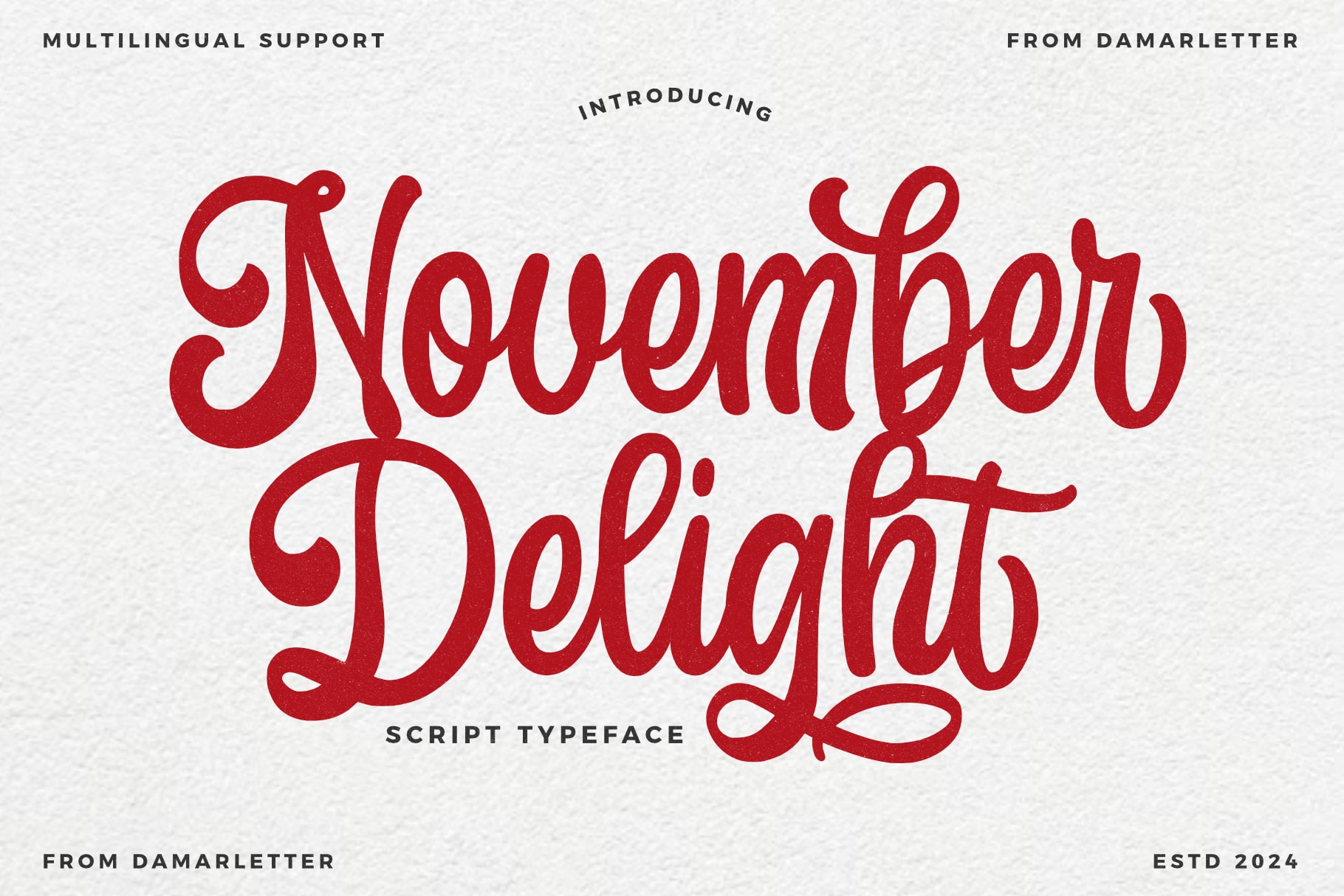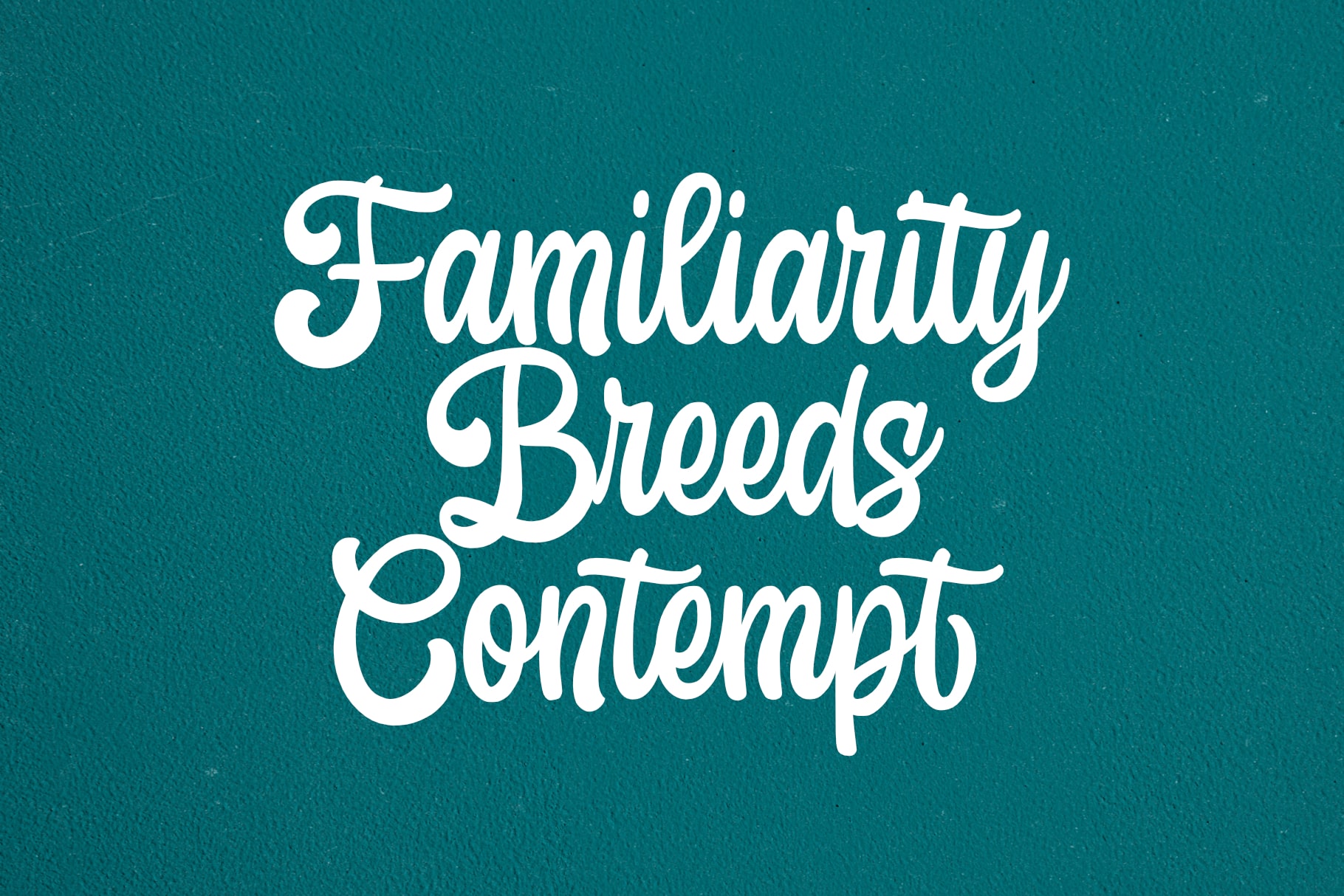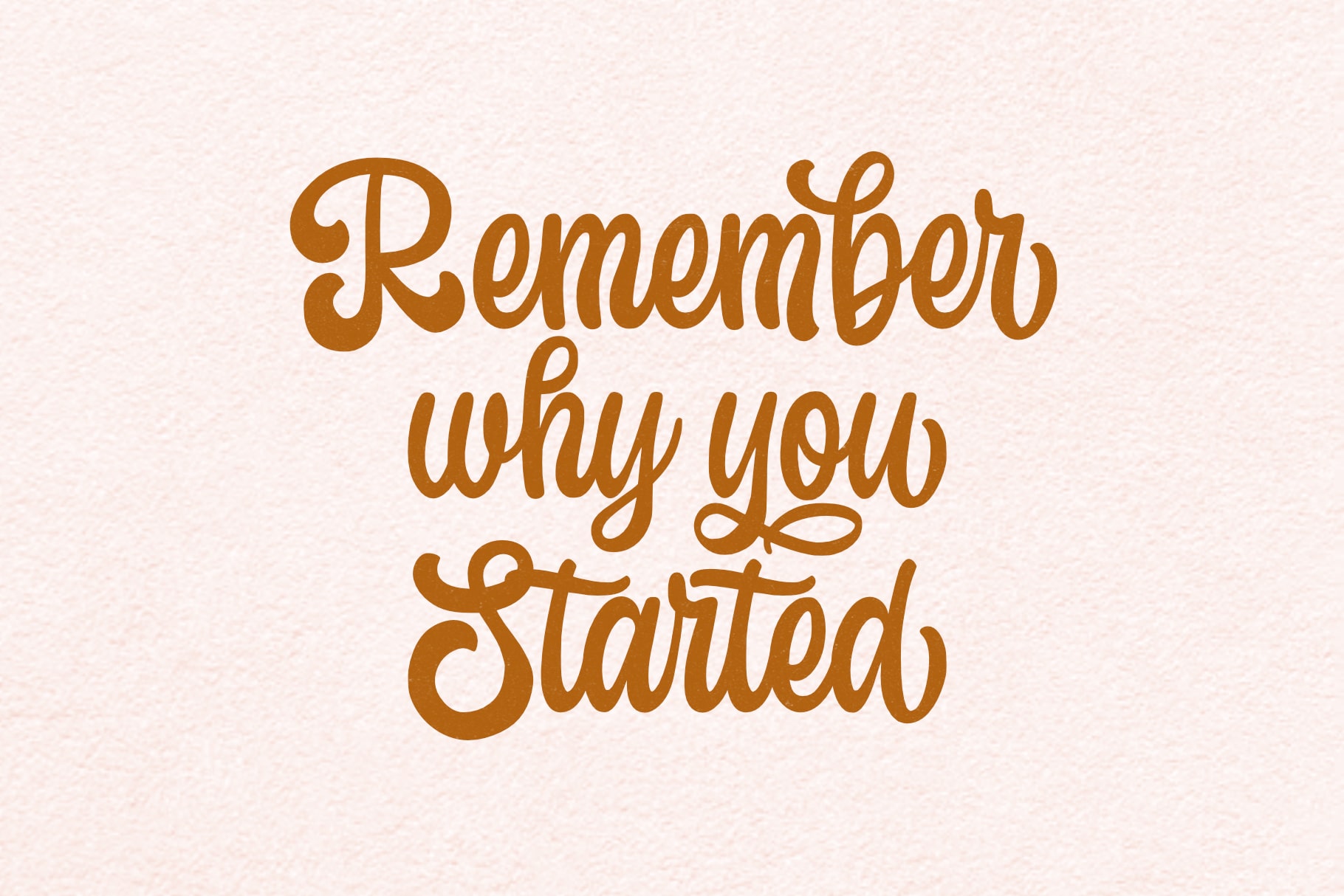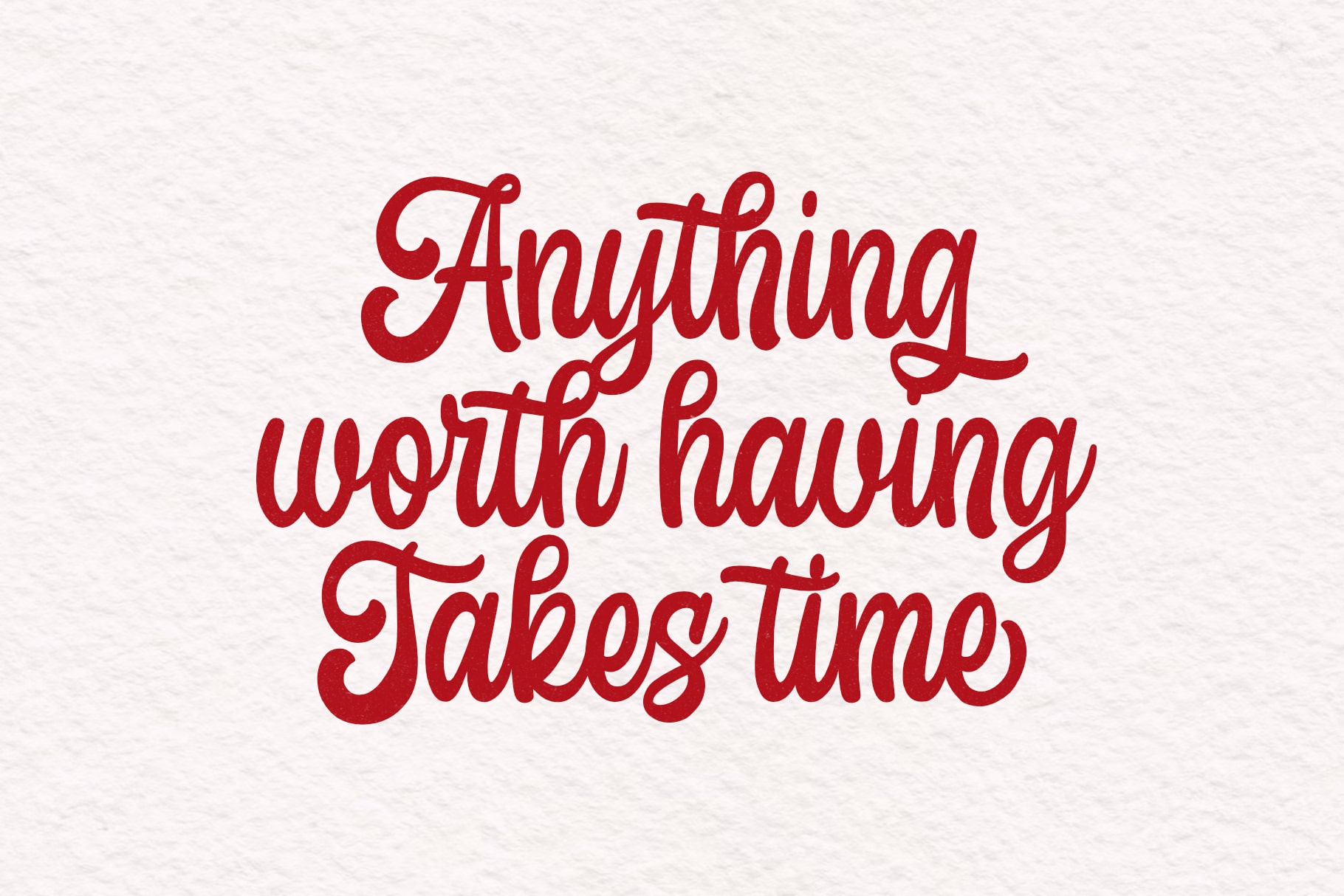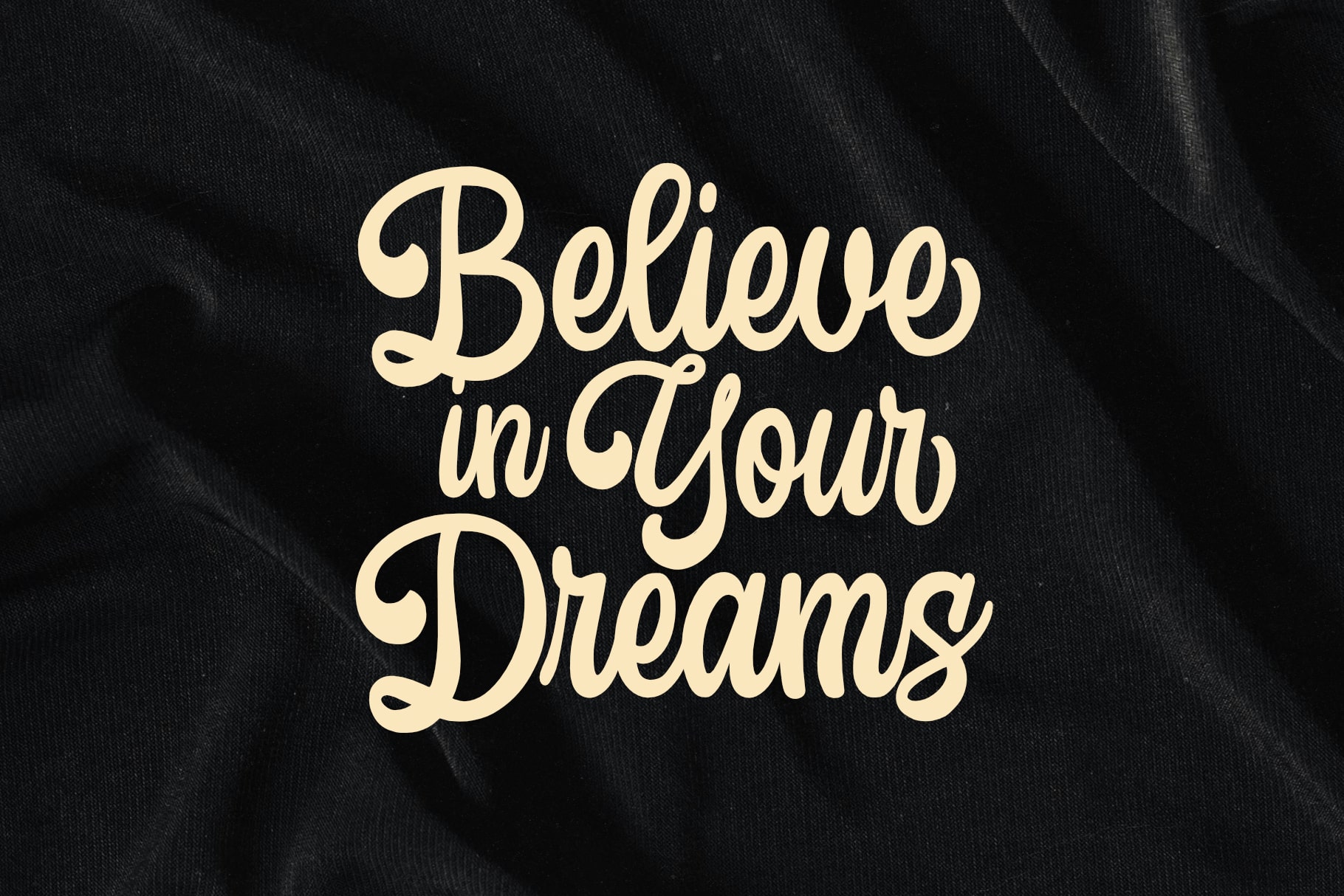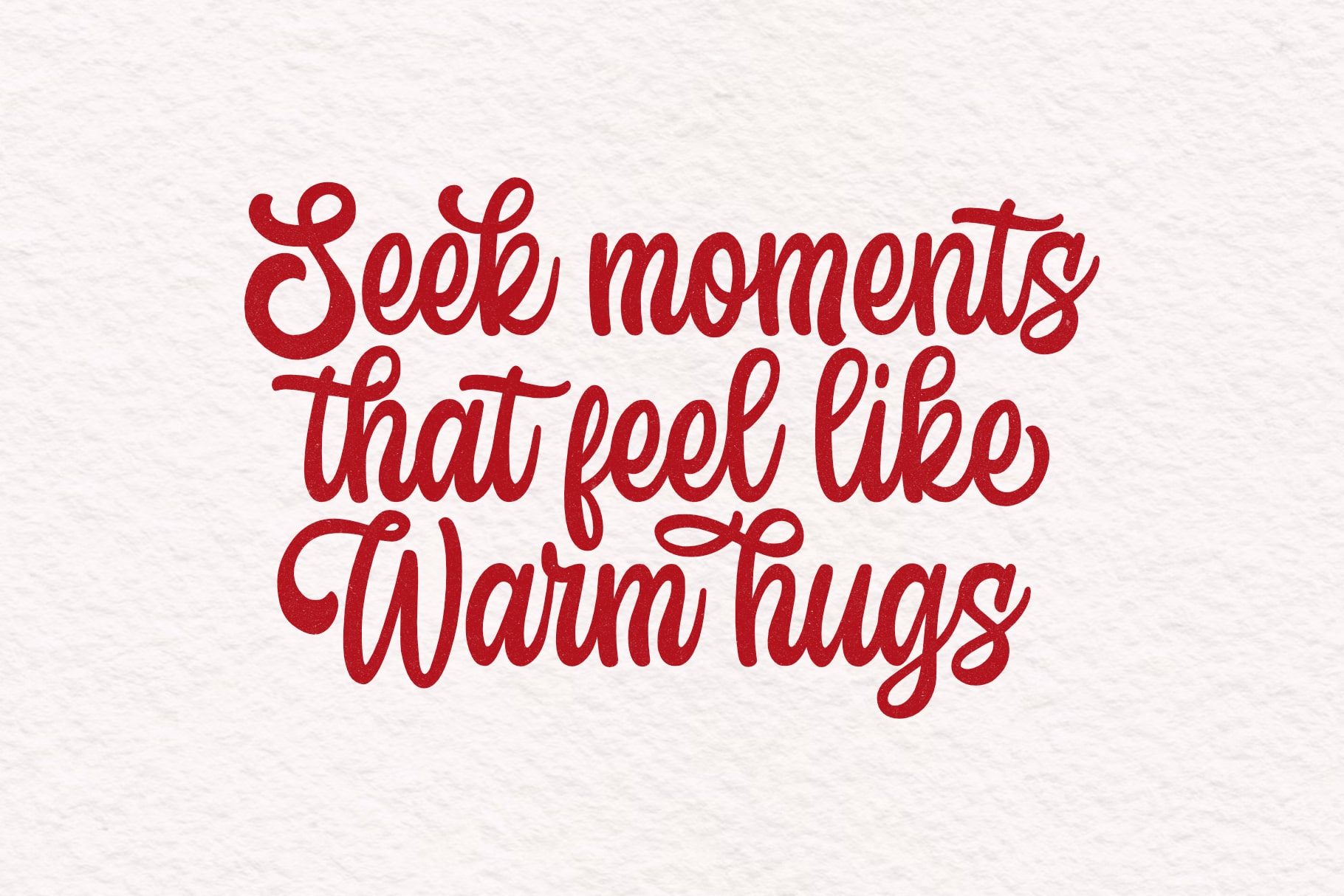
- November Delight
November Delight is a flowing script typeface that captures the essence of elegance and charm. With its smooth, graceful curves and beautifully crafted letterforms, this font is perfect for designs that seek to convey warmth, creativity, and a touch of romance. Whether used for invitations, branding, or editorial design, November Delight adds a personal and stylish flair to any project.